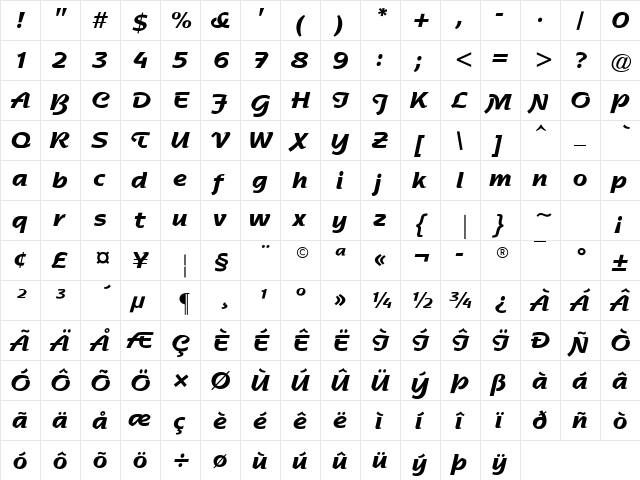
Sentimental Script SSi Bold Font Preview
Design Context for Sentimental Script SSi Typeface
Sentimental Script SSi flows with the natural rhythm of handwritten lettering, making it ideal for designs that call for warmth and personal expression. Its bold stroke weight gives it real presence on the page.
Font Pairing: Combine Sentimental Script SSi with a simple geometric sans for maximum contrast — the tension between flowing curves and clean structure is a classic typographic pairing.
Pro Tip: Pair Sentimental Script SSi with a clean sans-serif for supporting text. The contrast between fluid script and geometric structure creates an elegant typographic hierarchy.